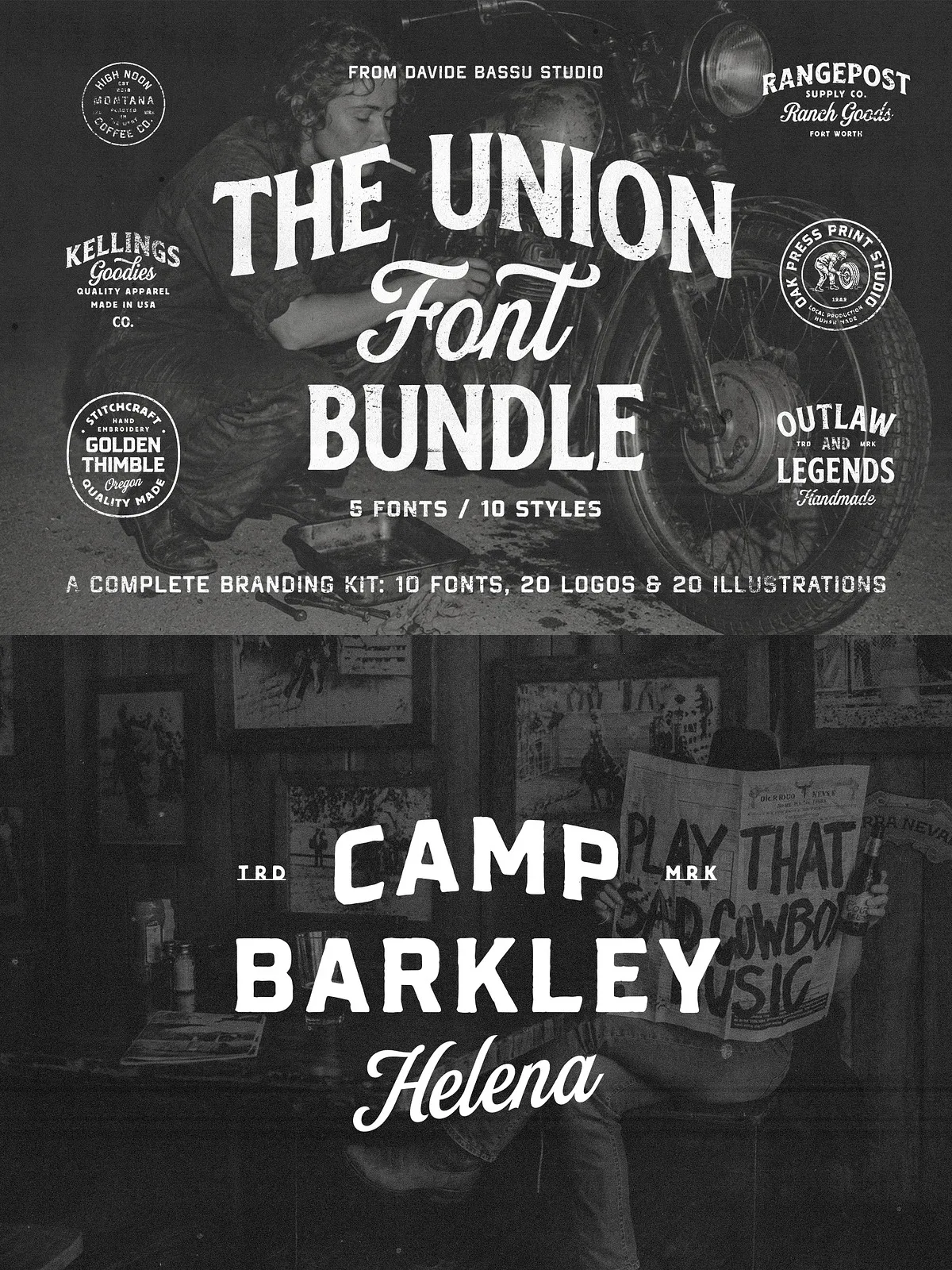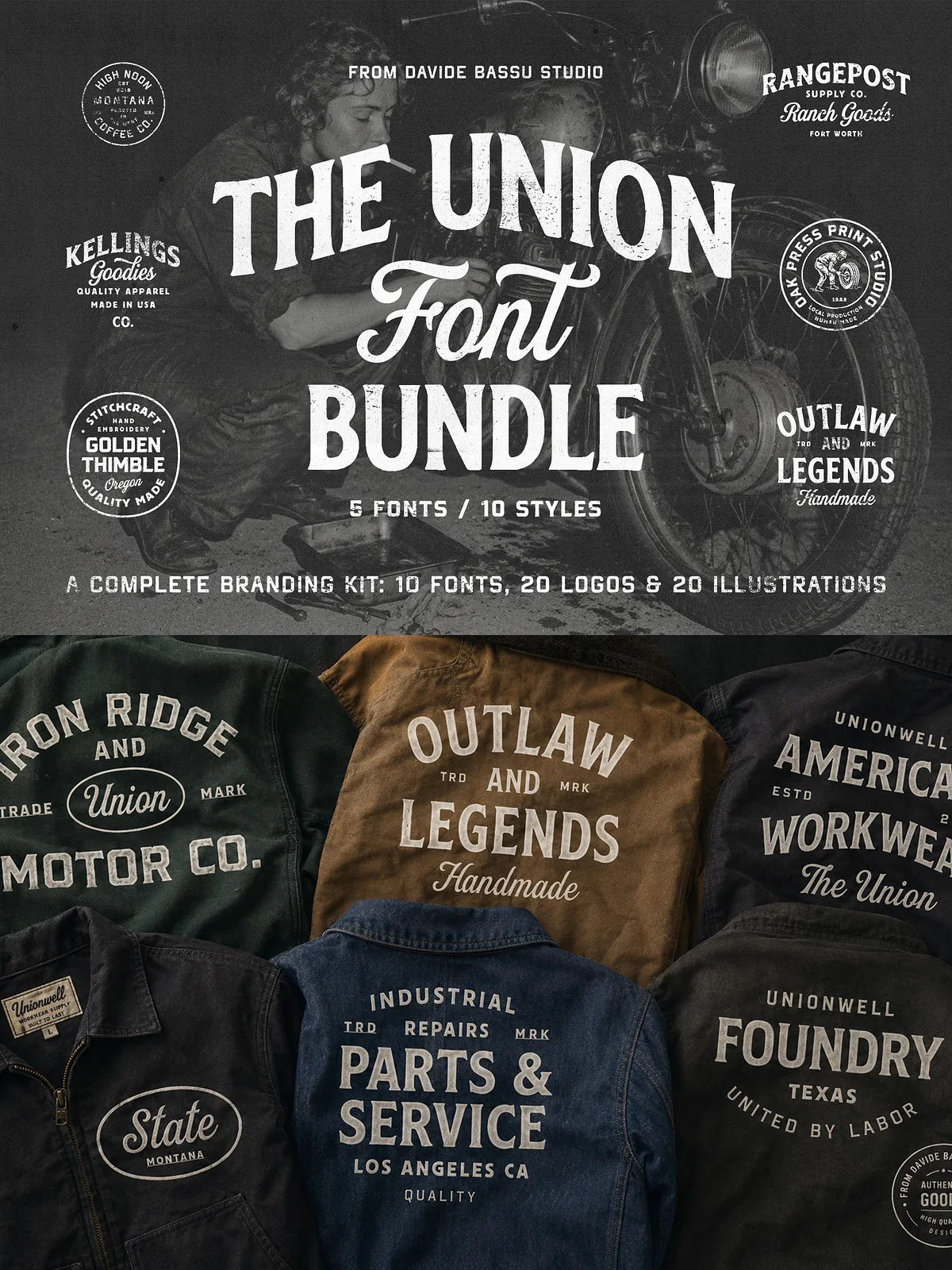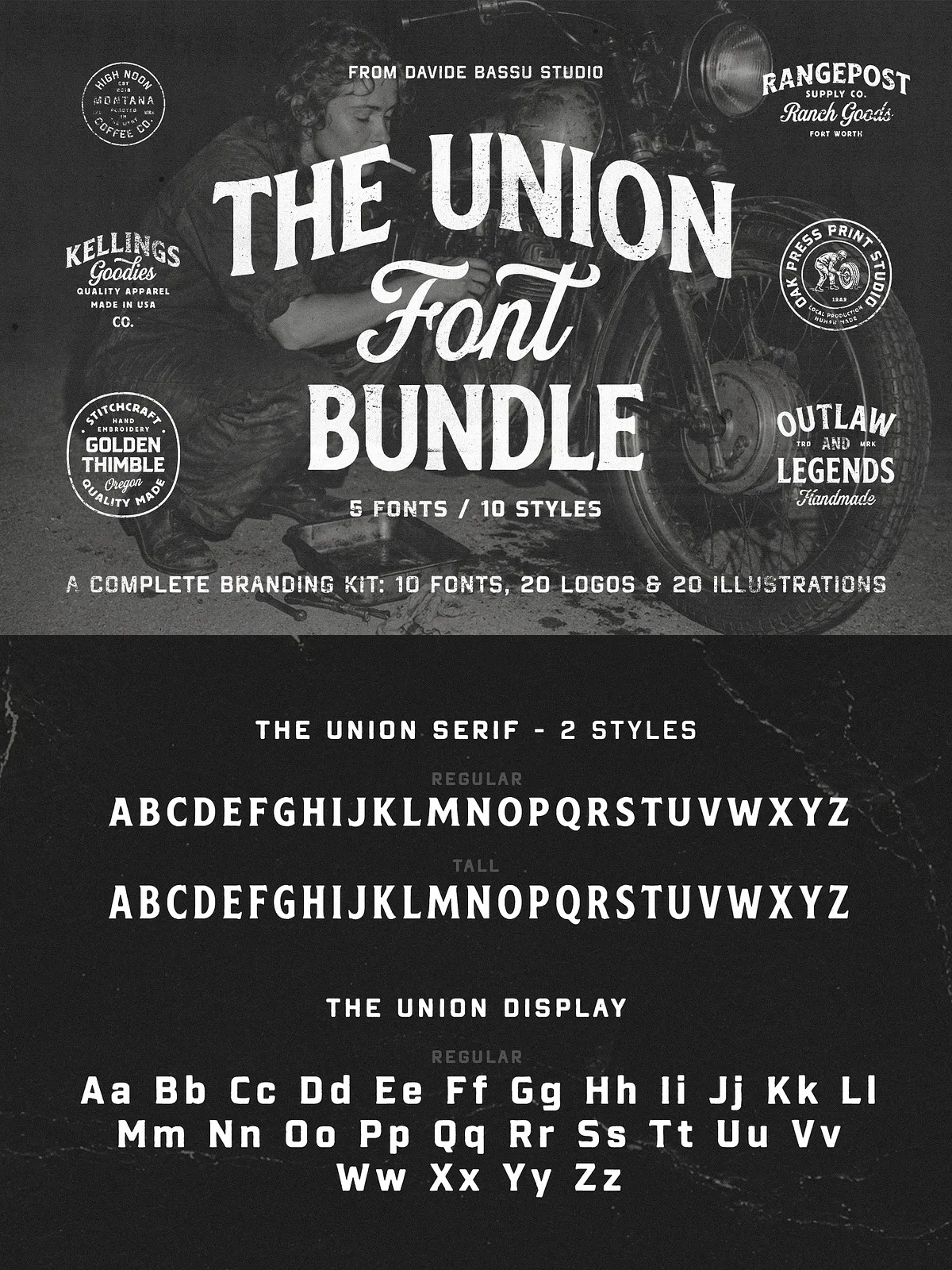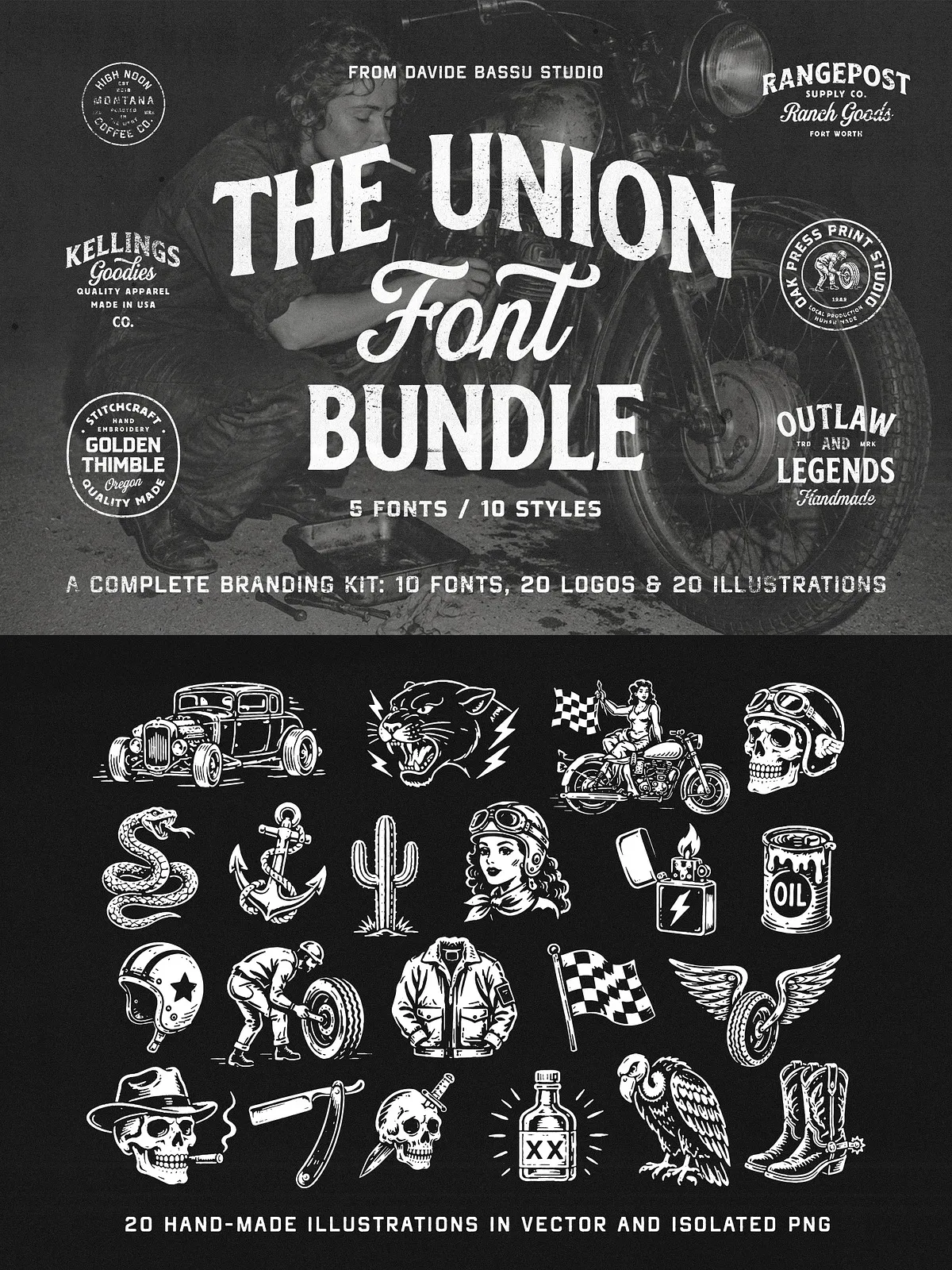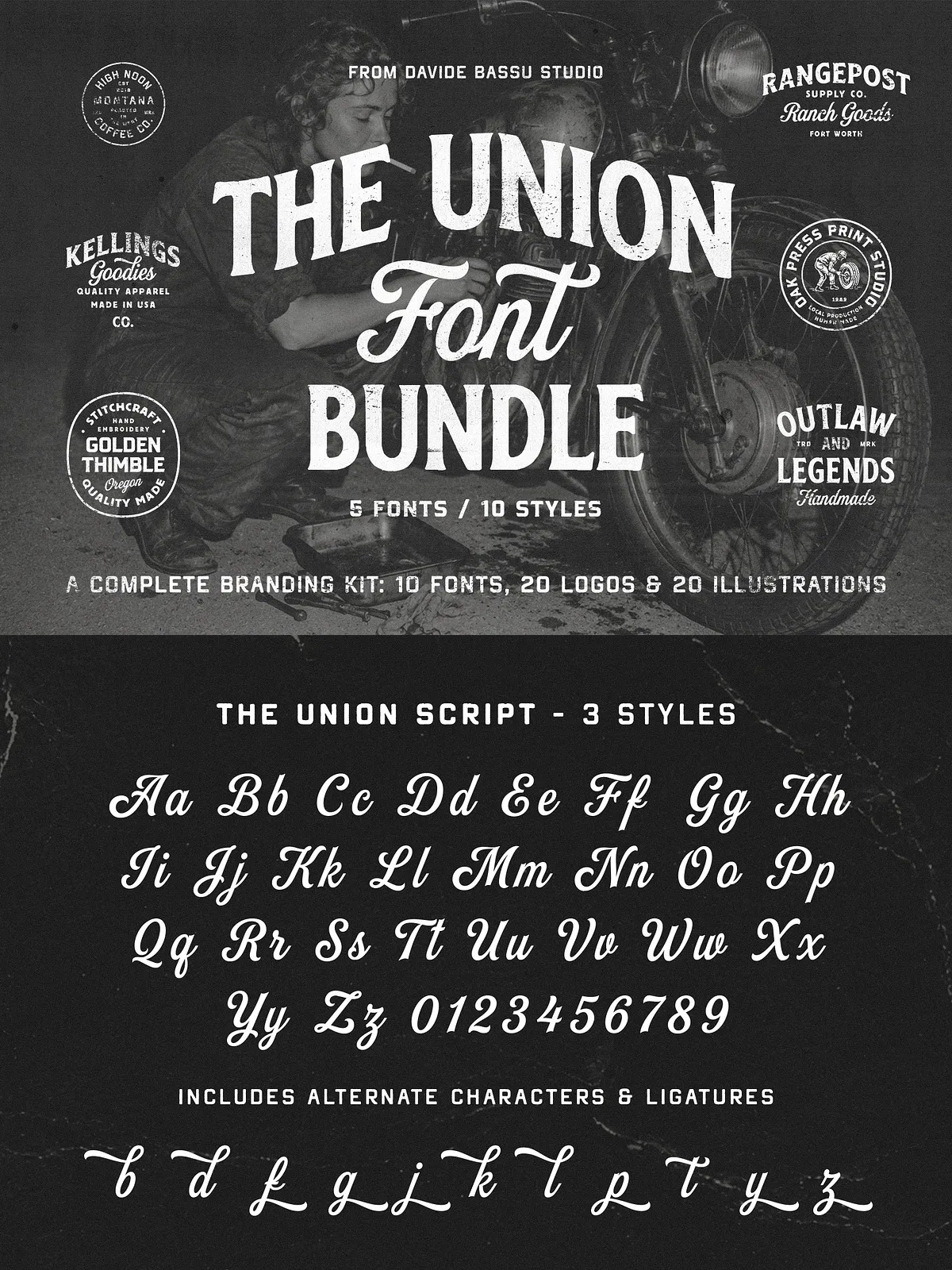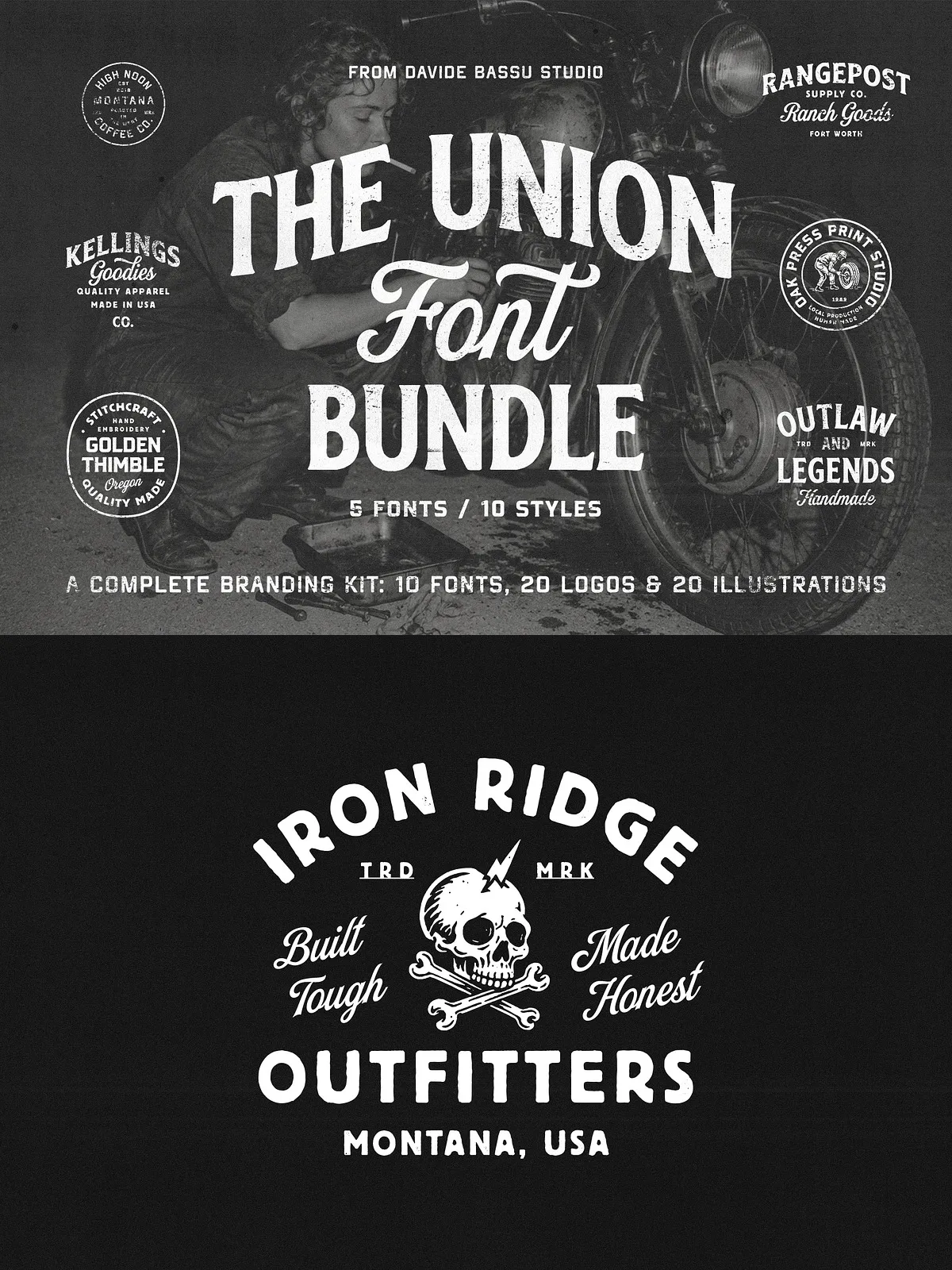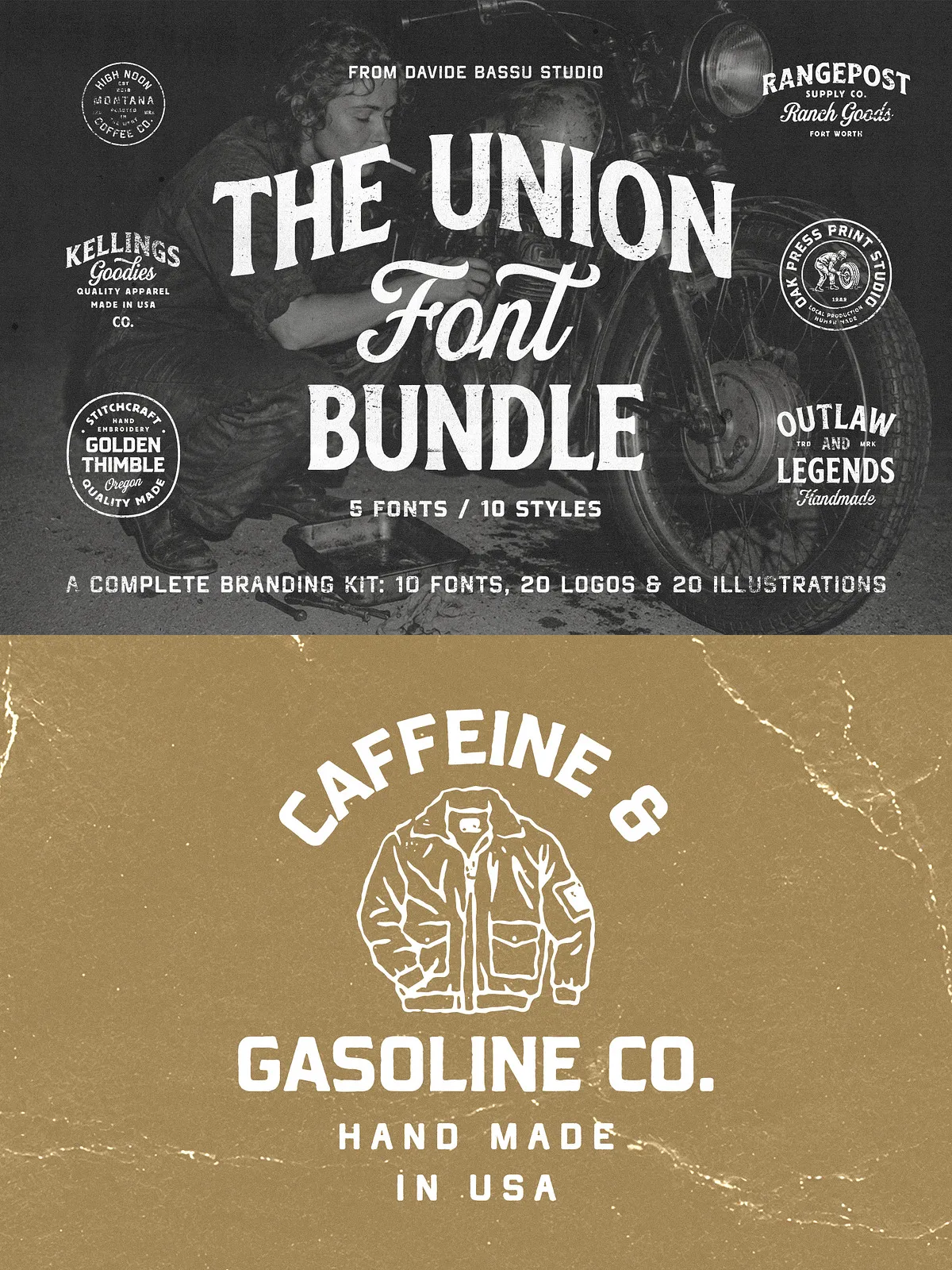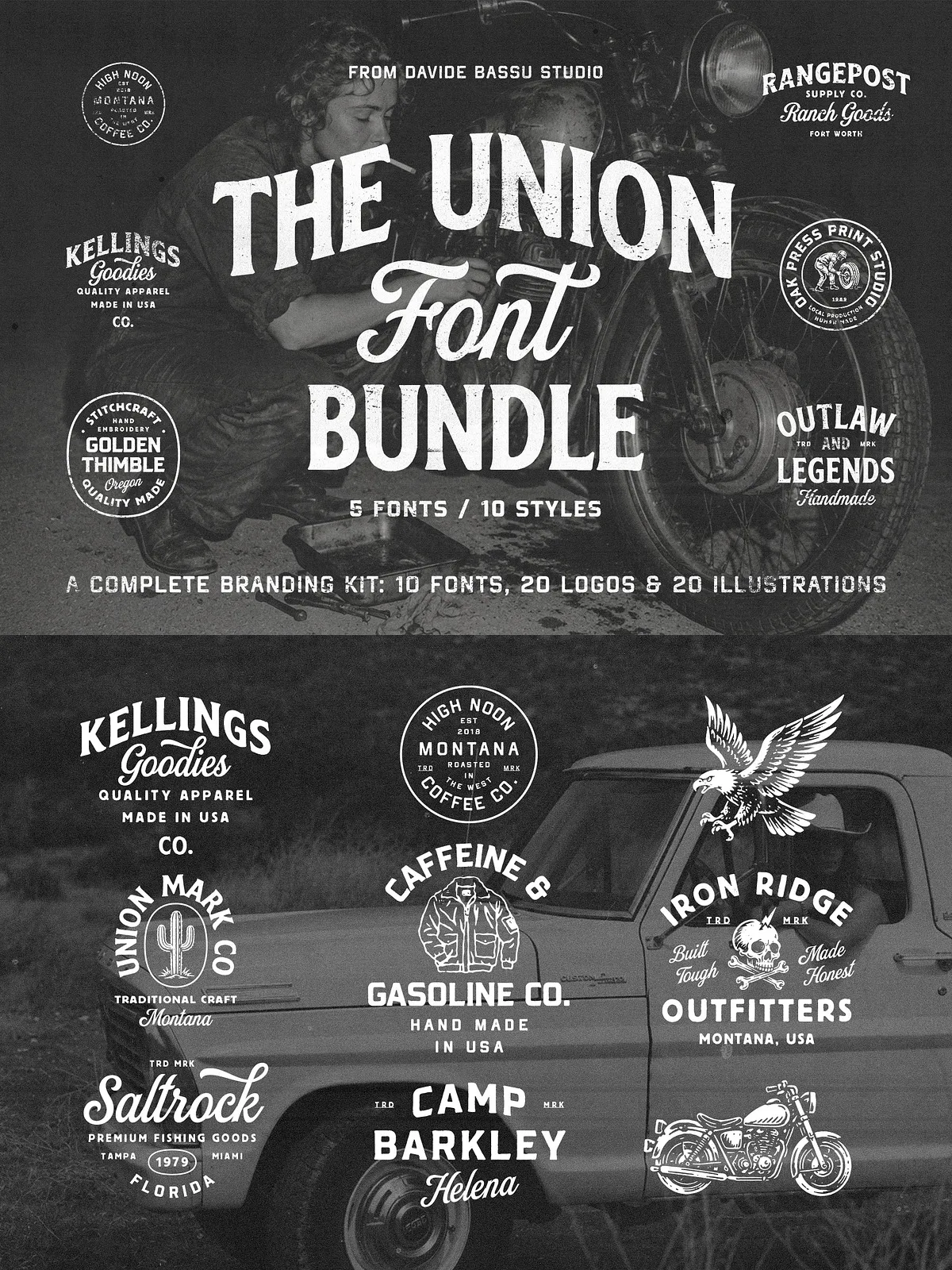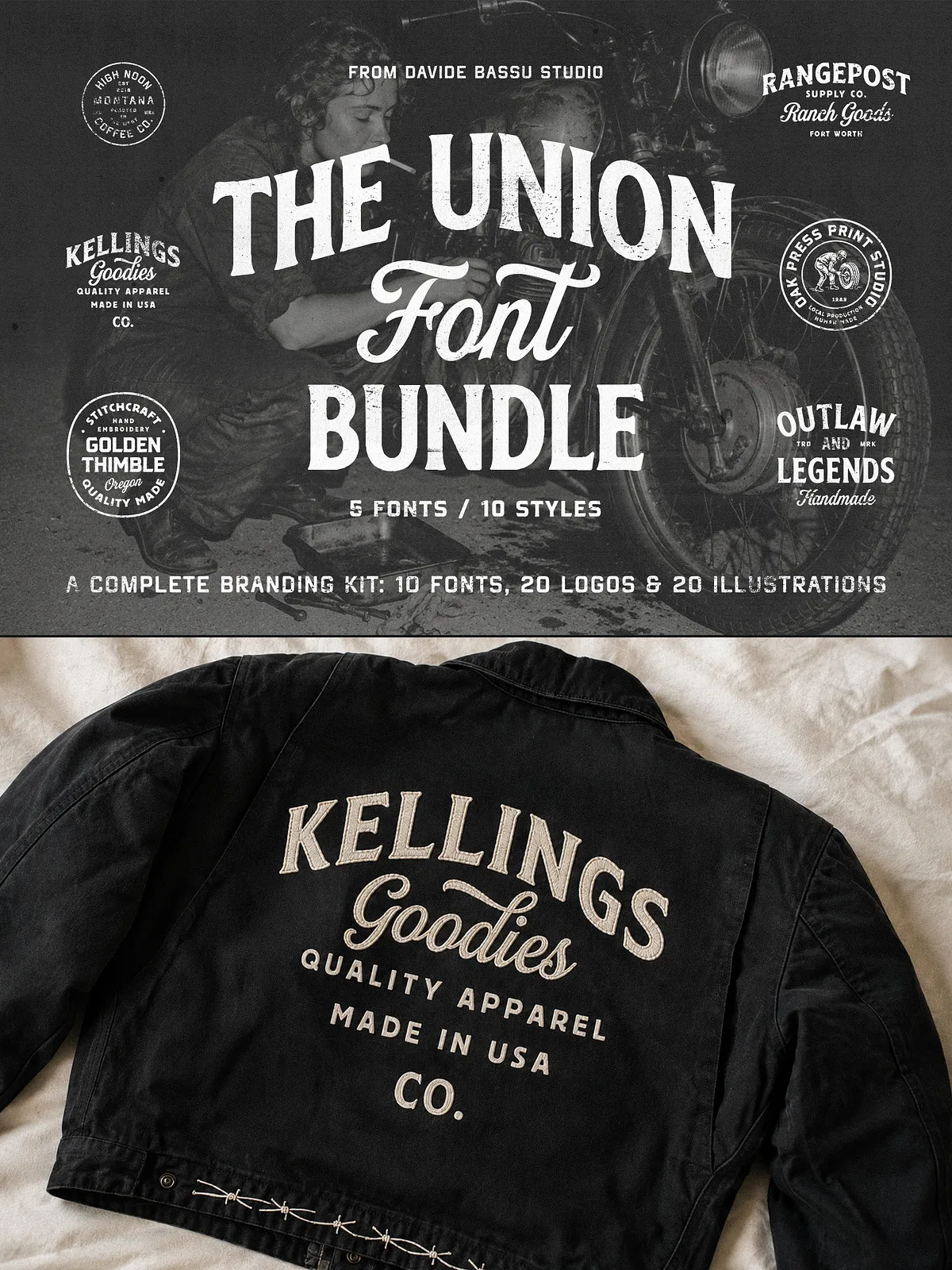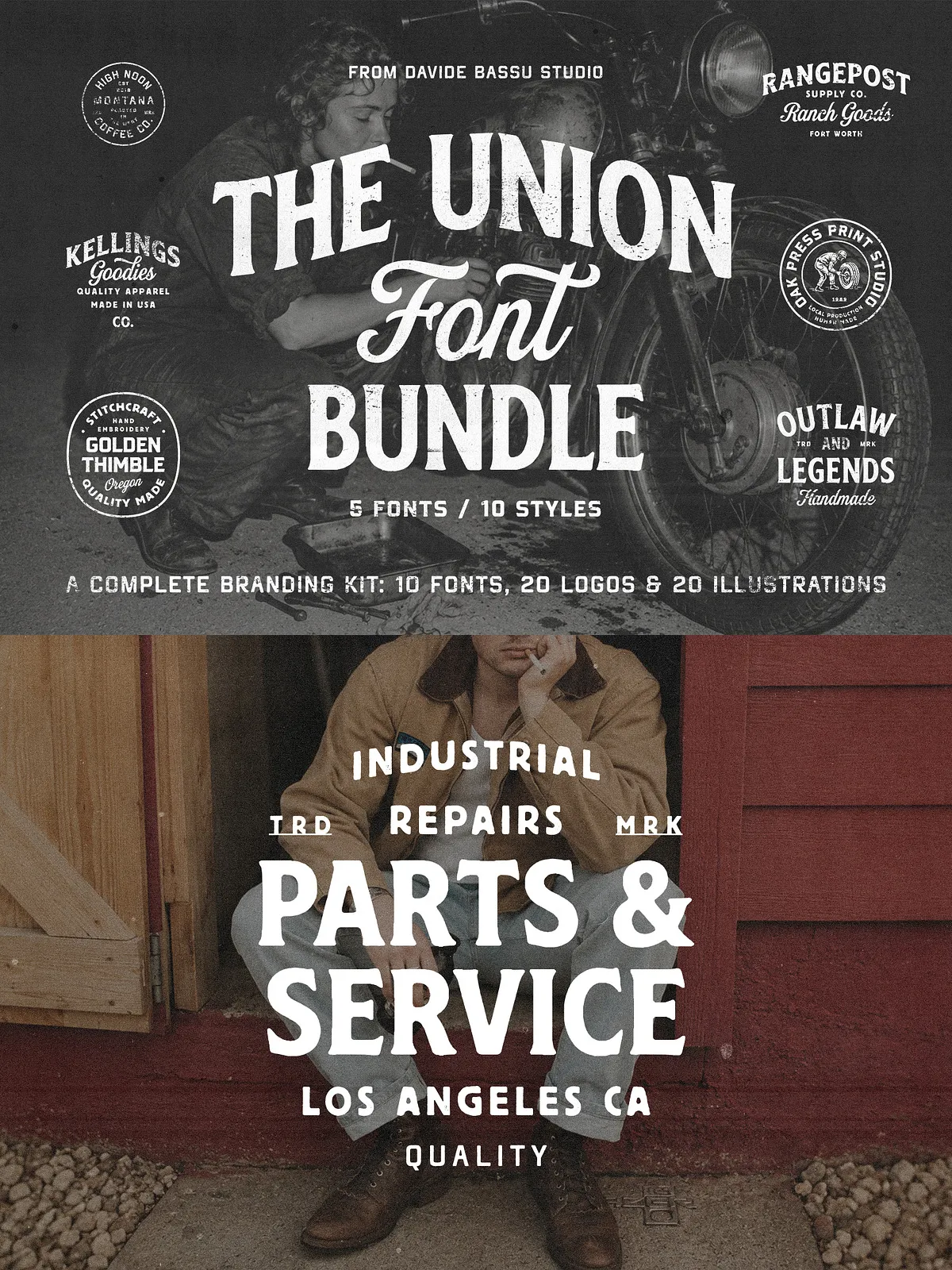
The Union Font Bundle delivers a complete, ready-to-use toolkit for designers who build authentic, American-inspired brands. This collection brings together handcrafted typefaces, editable vintage logo templates, and hand-drawn illustrations that capture the spirit of workwear, motorcycle culture, ranch life, and heritage craftsmanship. Every element works together so you can create consistent brand systems quickly and confidently.
Font Families
- 5 font families designed to coordinate across bold display serifs, rugged sans serifs, and expressive script styles.
- 10 total styles giving you weight and stylistic flexibility for headlines, logotypes, and supporting text.
Logo Templates
- 20 editable vintage logo templates built for logos, badges, and apparel graphics. Each template adapts easily to your brand name, tagline, and icons.
Illustrations
- 20 hand-drawn illustrations featuring classic Americana motifs: motorcycles, eagles, skulls, snakes, western icons, racing graphics, and workwear details.
- Illustrations pair seamlessly with the fonts and logo templates to create cohesive visual identities.
Design & Workflow
The Union Bundle emphasizes practical, speedy workflows. Use the bold display serifs for primary logotypes, the rugged sans for supporting copy and signage, and the script fonts to add handcrafted accents. Mix and match the included logos and illustrations to produce apparel graphics, labels, or social content that feel intentionally vintage, not dated.
Ideal Uses
The collection targets designers and brand builders who want a bold, nostalgic voice that still reads modern. Use it for:
- Apparel and merchandise design
- Logo and badge creation
- Western and ranch branding
- Motorcycle shops, garages, and automotive projects
- Coffee roasters, breweries, and specialty food packaging
- Outdoor and workwear brands
- Packaging, labels, posters, and editorial spreads
- Social media graphics and ad creatives